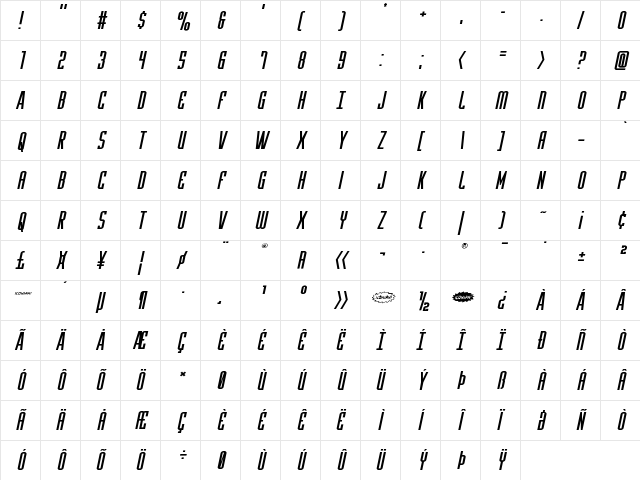
Y-Files Expanded Italic Expanded Italic
Design Context for Y-Files Expanded Italic Typeface
Y-Files Expanded Italic is a composed and adaptable typeface that performs quietly and consistently across a wide range of design contexts. The dynamic lean of this cut emphasises speed and emphasis in any layout.
Pro Tip: Use Y-Files Expanded Italic for emphasis, pull quotes, and subheadings where its slanted energy can add rhythm to the layout.